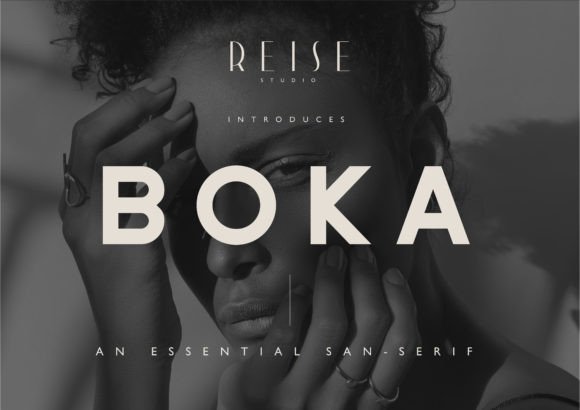
The Birth of a Bold Idea
Have you ever stared at a blank canvas, waiting for inspiration to strike? The cursor blinks, and your mind goes blank. But then, a spark of creativity ignites. You envision a design that exudes confidence and elegance – a perfect blend of boldness and sophistication. This is the moment when the right font can make all the difference.
Enter the Boka Font, a sans-serif powerhouse designed to captivate audiences with its sleek lines and sharp angles. This font is perfect for creating striking, modern designs that demand attention without sacrificing refinement. Whether you’re a seasoned designer or just starting out, the Boka Font is an invaluable asset in your creative arsenal.
Boka Font Key Features
- Font Family: Boka is a sans-serif font family designed for digital use, offering a clean and modern look.
- Character Count: Boka font includes a wide range of characters, including Latin, Cyrillic, and Greek alphabets, as well as various symbols and punctuation marks.
- Language Support: Boka font supports over 200 languages, making it an excellent choice for multilingual projects and applications.
- Size: Boka font is available in 6 weights, ranging from Light to Extra Bold, providing flexibility for various design needs.
Boka Font Review
I’ve had the chance to work with the Boka Font, and here’s my honest take.
- The Boka Font has a unique, elegant look that can add a touch of sophistication to any design. Its mix of modern and vintage elements makes it versatile for a wide range of projects.
- The font’s clean lines and simple shapes make it easy to read, even at smaller sizes.
- The font family includes multiple weights, from light to bold, allowing for a lot of flexibility in terms of typography.
- The Boka Font may not be the best choice for projects that require a lot of emphasis on bold, dramatic text, as it can come across as a bit too refined.
- The font’s elegance can also make it feel a bit too formal for more casual projects, such as blog posts or social media graphics.
The Boka Font is a solid choice for designers who want a clean, elegant look for their projects. While it may have some limitations, it’s a great option for those who value simplicity and sophistication.
Tips for Getting the Most Out of Boka Font
For the best results, use the Boka font with a clean and simple design aesthetic. Experiment with different font sizes and styles to create visual interest.
The Boka font is well-suited for use in branding, marketing materials, and editorial content. It’s particularly effective for creating a modern and sleek look.